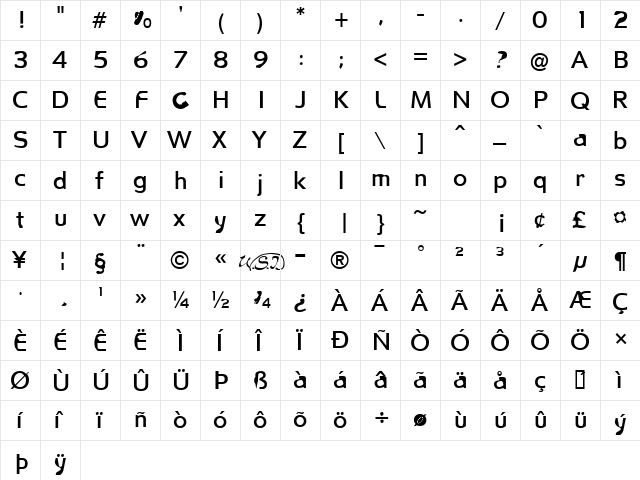
FKR WifeLife Regular
Design Context for FKR WifeLife Typeface
FKR WifeLife offers clean, dependable letterforms without strong stylistic allegiance, making it a practical choice for designers who need flexibility.
Pro Tip: Pair FKR WifeLife with a font of contrasting weight or personality to build a more expressive typographic hierarchy.